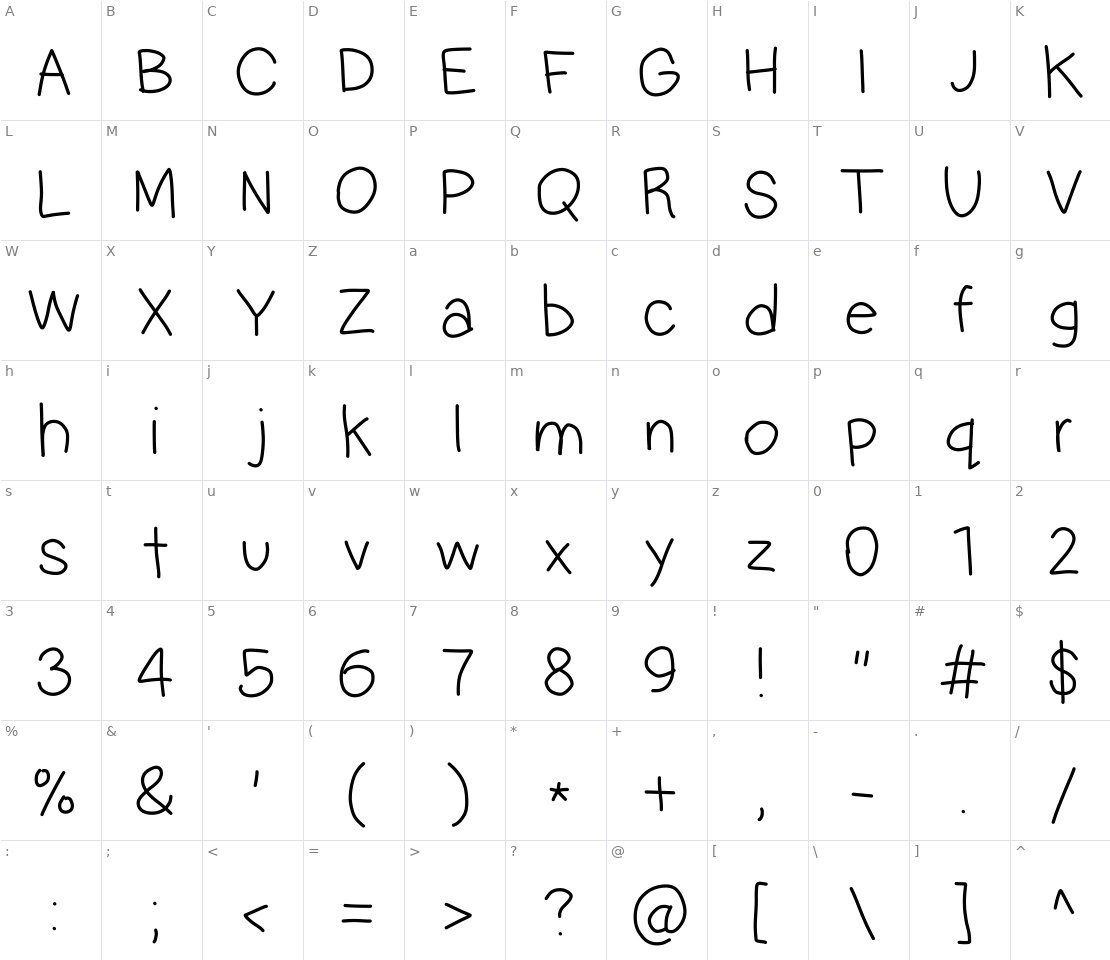
Multilingual Hand
by Geronimo Font Studios
Multilingual Hand is a thin, casual handwritten face from Geronimo Font Studios that captures the uneven rhythm of someone jotting a quick note. The lightweight strokes and slightly childlike letterforms feel genuinely informal, more like real handwriting than a polished script. A good fit for personal projects, greeting cards, notes, and anywhere you want text that reads as friendly and unforced.